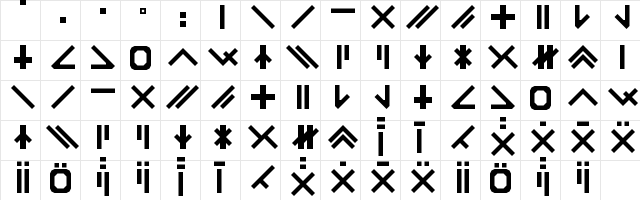
Catabase Regular
Design Context for Catabase Typeface
Catabase is a composed and adaptable typeface that performs quietly and consistently across a wide range of design contexts.